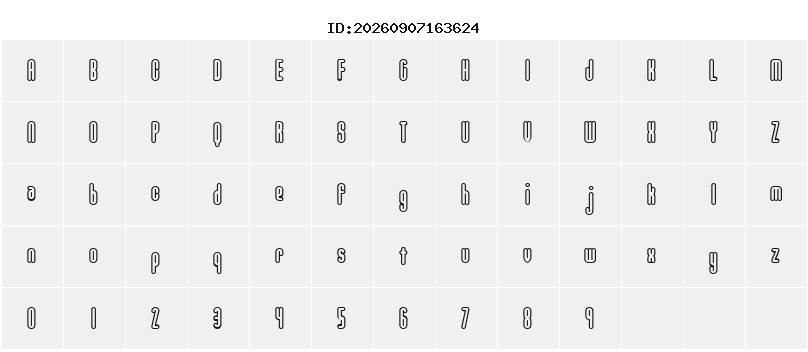
Unanimous (BRK) Preview
• Font Name: Unanimous (BRK)
• Full Font Name: Unanimous -BRK-
About Unanimous (BRK).ttf
Unanimous (BRK).ttf is a modern, elegant sans-serif font designed for ultimate readability and visual harmony. Perfect for branding, headlines, web design, and print materials.